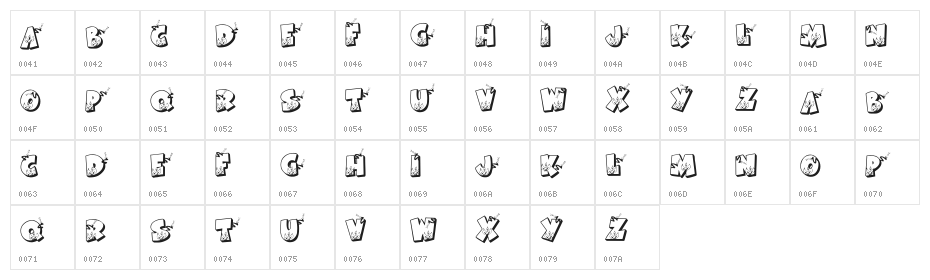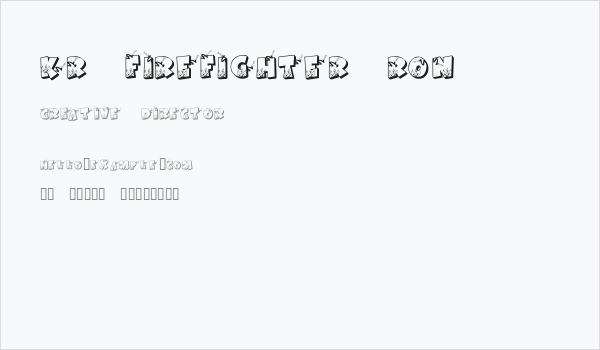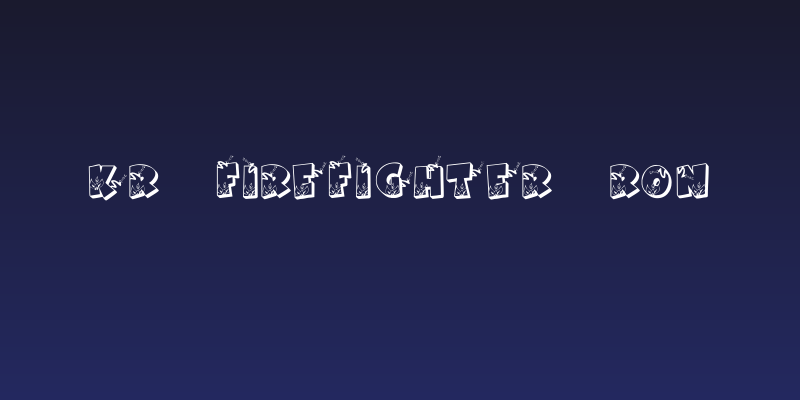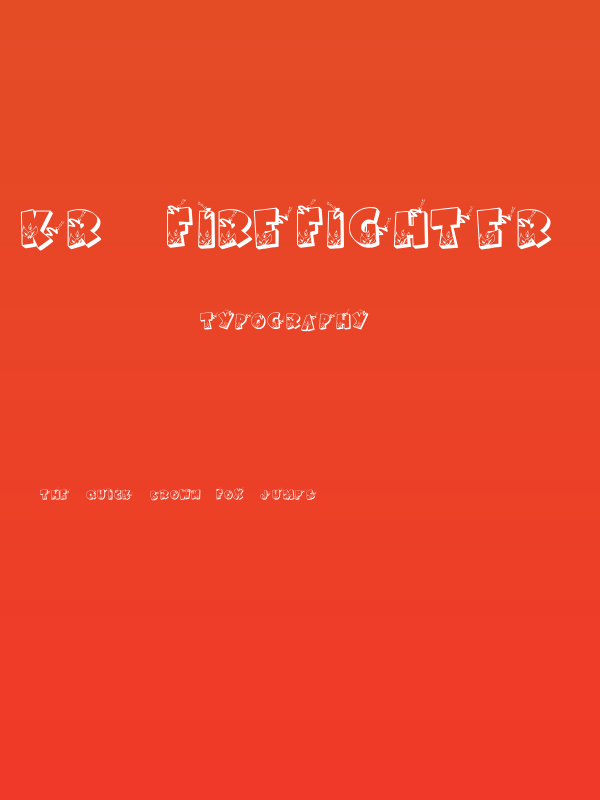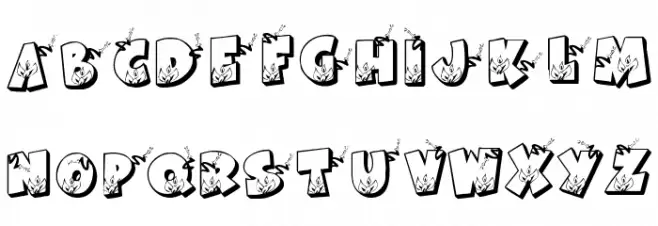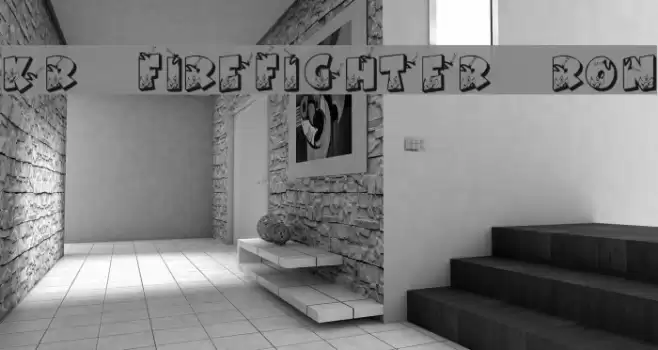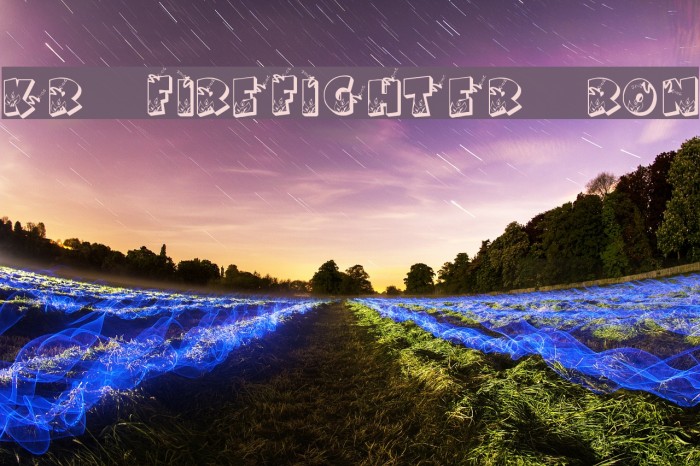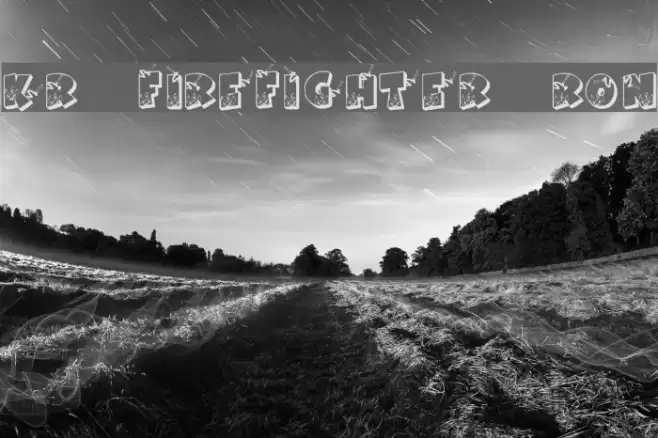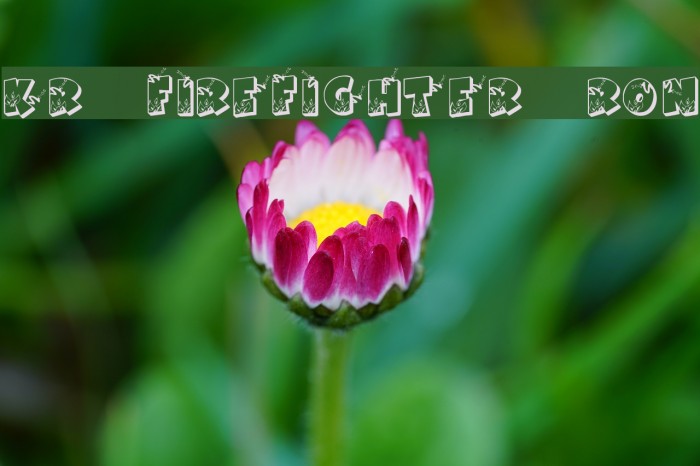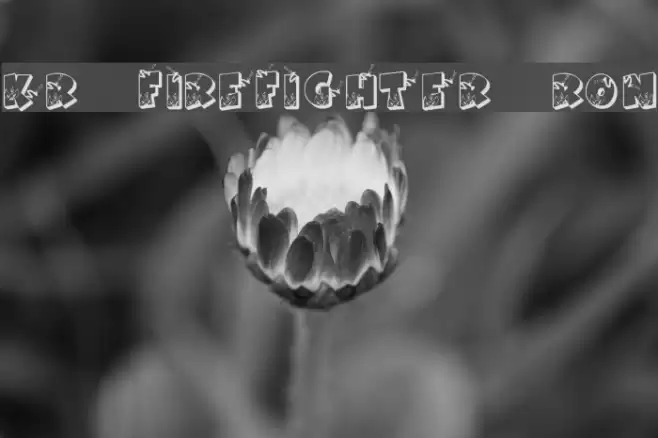
KR Firefighter Ron Font
This font features bold, three-dimensional letters with a playful and dynamic design. Each character is adorned with stylized flames, giving the impression of movement and energy. The thick outlines and shadowing add depth, making the letters stand out prominently. This decorative style is eye-catching and ideal for projects that require a lively and engaging visual element. The font's unique design elements make it suitable for creative and informal applications.
| Proposed Projects | Ideal for posters, event flyers, children's book covers, and any project needing a playful and energetic typeface. |